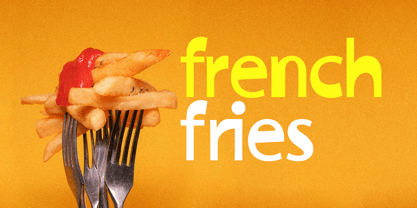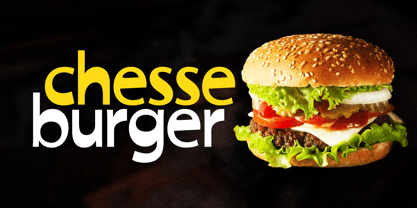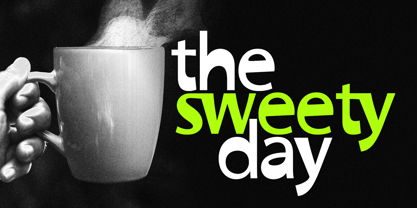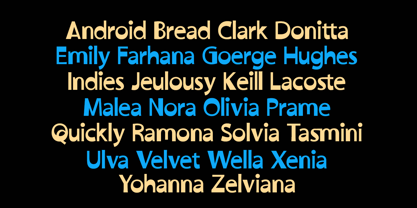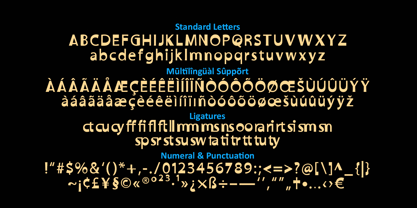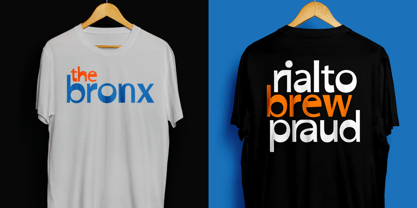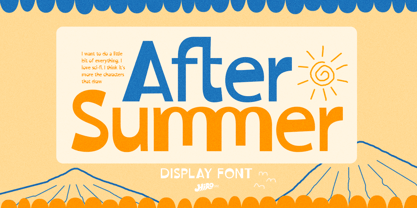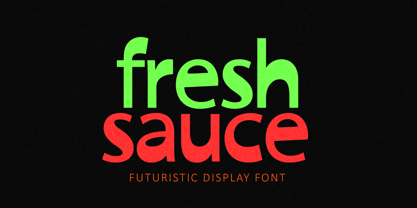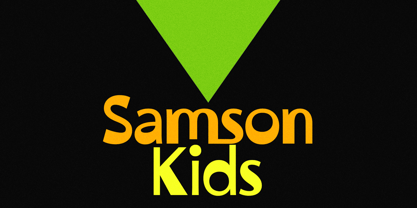
After Summer
by HIRO.std
The After Summer Font Family was designed by Chairul Ashar and published by HIRO.std. After Summer contains 1 styles. More about this family
After Summer is Display Font.   This font describes about fresh, simple, groovy, unique, childish, clean and easy to use.   FEATURES - Uppercase and lowercase letters - Numbering and Punctuations - 29 ligatures - PUA Encoded Characters - Multilingual Support - Works on PC or Mac   USE After Summer works great in headline, logotype, labels, book cover, poster, flyers, magazine, packaging, apparel, and any projects that need unique simple taste.   Enjoy using! Thanks.   HIROstd